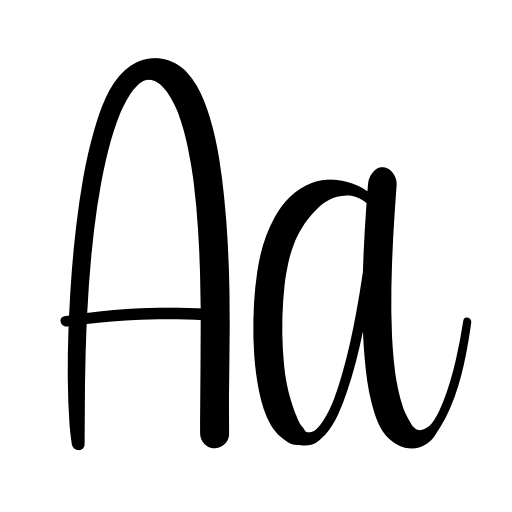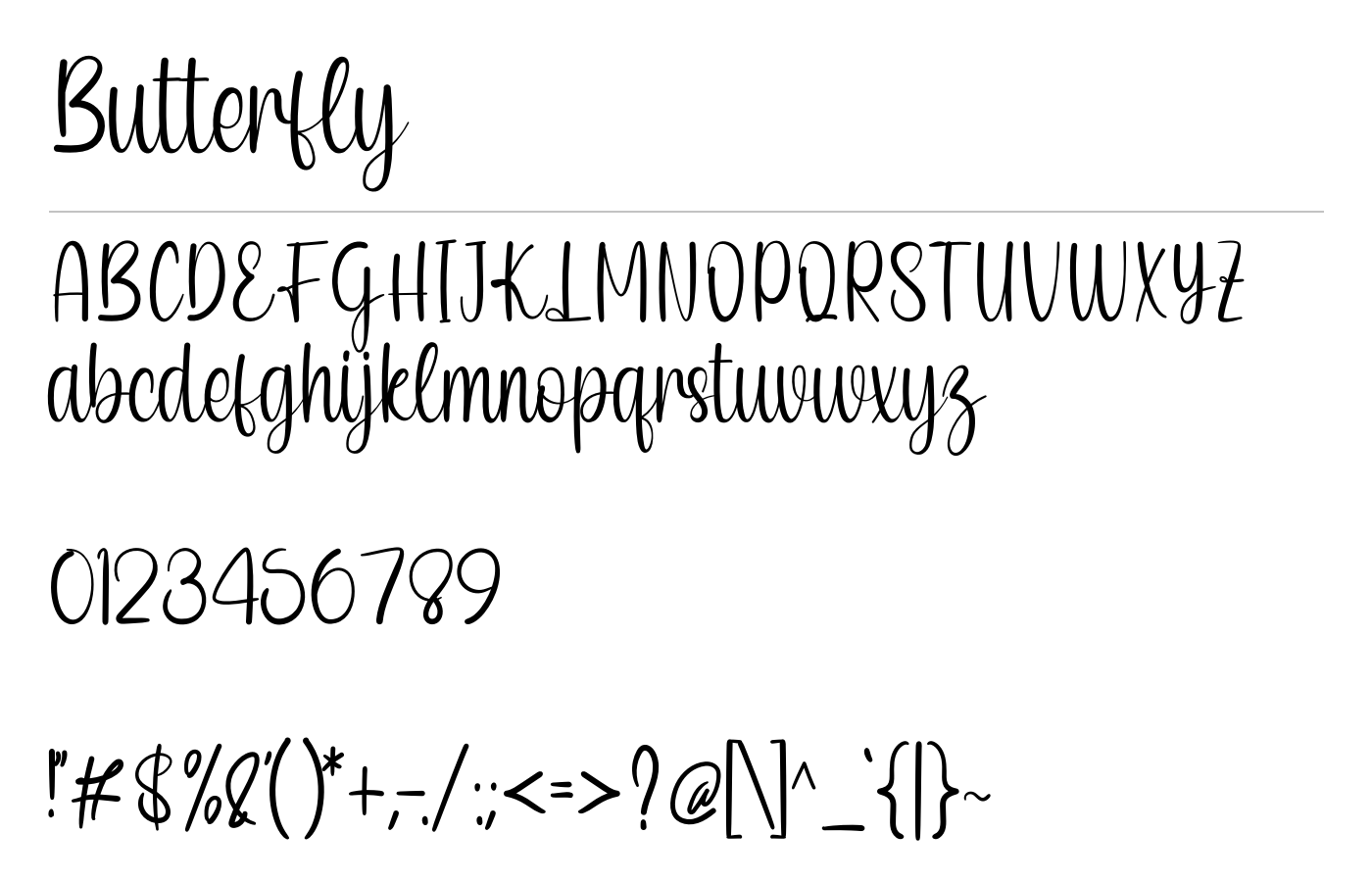
Butterfly Font is a delicate, handwritten script with a light weight and graceful, flowing strokes that create an airy and elegant feel. Its tall, narrow letterforms and playful curves make it perfect for designs that want to convey a personal, friendly, and stylish vibe, ideal for invitations, branding, and creative projects. This font stands out with its charming, casual look that is both modern and approachable.
Butterfly Font
About Butterfly Font